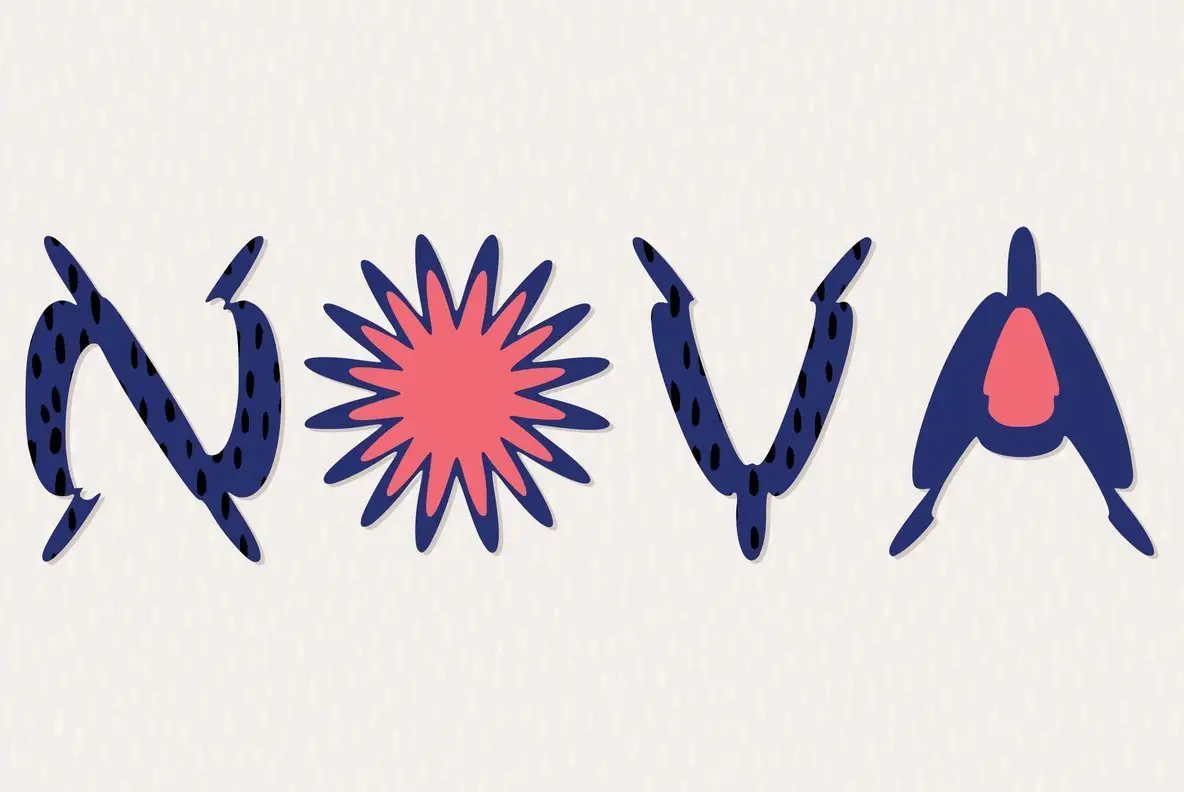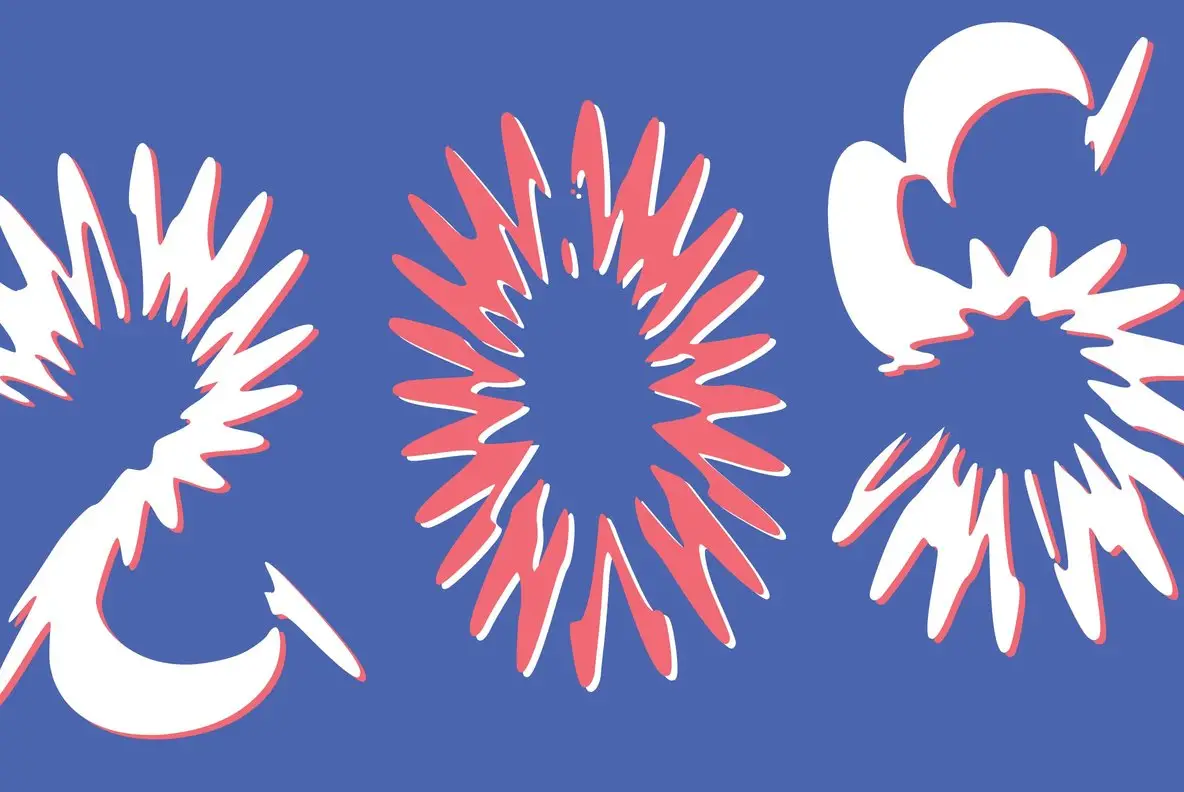
Alien Zoo Font Youworkforthem Unearth the enigmatic alien zoo font, a captivating blend of lost history and sci fi allure. perfect for design that defies convention. Find all the best fonts by youworkforthem like ywft hugo and ywft gavin for great prices at fontbros.
Alien Zoo Font Youworkforthem This font features a highly decorative and abstract design, with each letter incorporating unique, alien like elements. the uppercase letters are filled with intricate patterns and shapes, resembling extraterrestrial motifs. Click here and download the alien zoo font · window, mac, linux · last updated 2026 · commercial licence included. This font was created by benjamin a melville and features a full upper and lower case alphabet including 0 9 and some punctuation, please see glyphs list for all characters you will be able to work with. Archive of freely downloadable fonts. browse by alphabetical listing, by style, by author or by popularity.